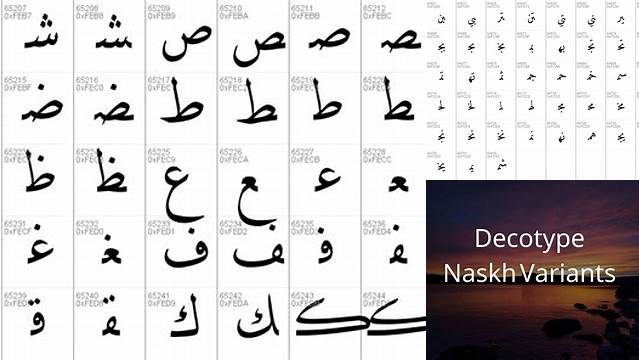
Are you looking to enhance your design projects with a touch of traditional Arabic calligraphy? Look no further! The Decotype Naskh font is an excellent choice, known for its elegance and readability. In this comprehensive guide, we will explore everything you need to know about Decotype Naskh, including its history, features, and, most importantly, how to download it for free. Let's dive in!
What is Decotype Naskh Font?
The Decotype Naskh font is a digital typeface inspired by the classic Naskh script, one of the primary typefaces used in Arabic calligraphy. Naskh is characterized by its clear, legible, and flowing letterforms, making it a popular choice for a wide range of applications, from books and newspapers to digital media. The Decotype version aims to preserve the traditional beauty of Naskh while optimizing it for modern digital use.
The significance of Decotype Naskh lies in its ability to bridge the gap between traditional Arabic calligraphy and contemporary design. Unlike some other Arabic fonts that may appear overly stylized or difficult to read, Decotype Naskh maintains a high level of clarity, ensuring that the text remains accessible to a broad audience. This makes it particularly suitable for projects that require a blend of cultural authenticity and modern aesthetics. Whether you're designing a website, creating marketing materials, or working on a publishing project, Decotype Naskh can add a touch of elegance and sophistication to your work.
Moreover, Decotype Naskh's design incorporates features that enhance its usability in digital environments. The letterforms are carefully crafted to ensure consistent rendering across different screen resolutions and devices. This is crucial for maintaining the integrity of the typeface and ensuring that the text remains legible, regardless of the viewing platform. Additionally, the font includes a comprehensive set of glyphs, supporting a wide range of Arabic characters and diacritics. This ensures that you can accurately represent the nuances of the Arabic language in your designs.
In summary, Decotype Naskh is more than just a font; it's a tool that allows designers to connect with a rich cultural heritage while creating visually appealing and highly functional designs. Its versatility, readability, and attention to detail make it an invaluable asset for anyone working with Arabic typography.
Key Features of Decotype Naskh
When considering a font for your project, understanding its features is crucial. Decotype Naskh boasts several key characteristics that make it a standout choice for Arabic typography:
- Readability: The primary goal of Decotype Naskh is to ensure maximum readability. The letterforms are designed with ample spacing and clear distinctions, making it easy to read even in smaller sizes.
- Elegance: Inspired by traditional Naskh calligraphy, this font exudes elegance and sophistication. Its flowing lines and balanced proportions add a touch of class to any design.
- Versatility: Decotype Naskh is suitable for a wide range of applications, from body text in books and articles to headlines and branding materials. Its versatility makes it a valuable asset for any designer.
- Comprehensive Character Set: The font includes a complete set of Arabic characters, diacritics, and ligatures, ensuring that you can accurately represent the nuances of the Arabic language.
- Digital Optimization: Decotype Naskh is optimized for digital use, with letterforms carefully crafted to render well on screens of various resolutions. This ensures that your text remains legible and visually appealing, regardless of the viewing device.
- Multiple Weights and Styles: Depending on the specific version, Decotype Naskh may come in multiple weights and styles, allowing you to create a visually consistent and hierarchical design.
The readability of Decotype Naskh is particularly noteworthy. In Arabic typography, maintaining clarity can be challenging due to the intricate nature of the script. However, Decotype Naskh addresses this challenge by employing careful spacing and distinct letterforms, ensuring that each character is easily distinguishable. This is especially important in body text, where readability is paramount for conveying information effectively. The elegance of the font is another key feature, adding a touch of sophistication to any design. Whether you're working on a high-end branding project or a traditional publication, Decotype Naskh can elevate the visual appeal of your work.
The versatility of Decotype Naskh makes it a practical choice for designers working on diverse projects. Its ability to function effectively as both body text and headlines means that you can maintain a consistent typographic style throughout your design. The comprehensive character set ensures that you have all the necessary glyphs to accurately represent the Arabic language, including diacritics and ligatures that are essential for proper rendering. Additionally, the digital optimization of Decotype Naskh ensures that it performs well in digital environments, maintaining its legibility and visual appeal on screens of all sizes.